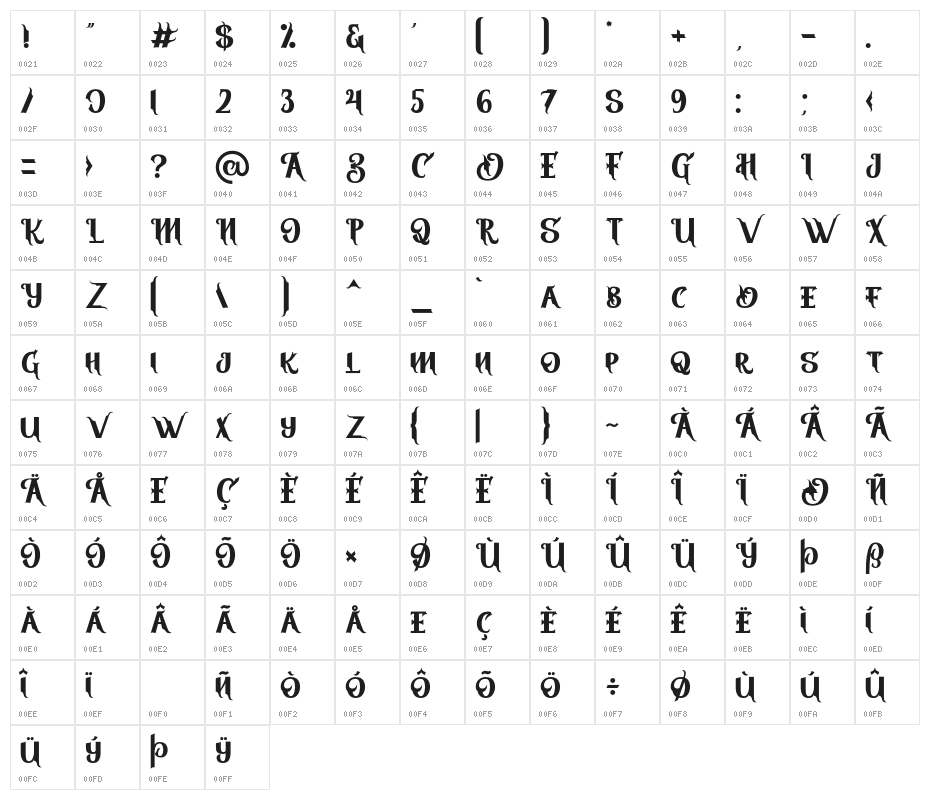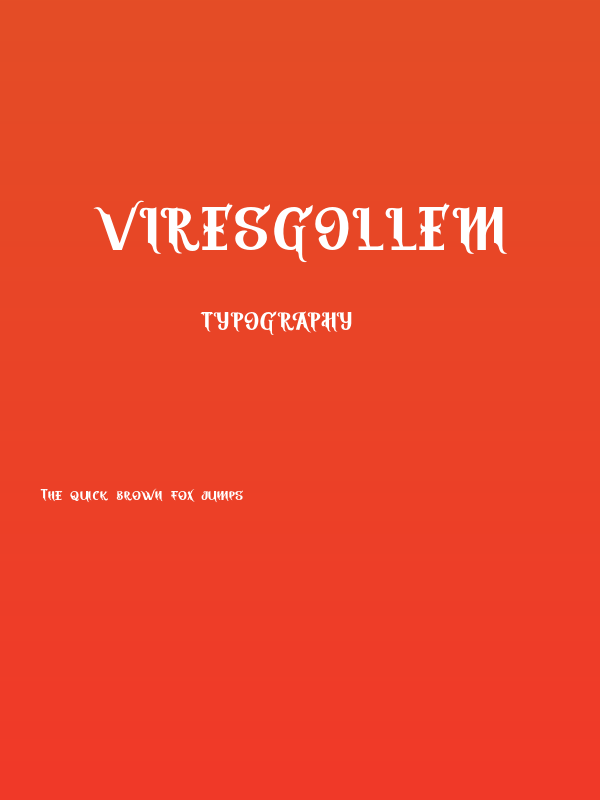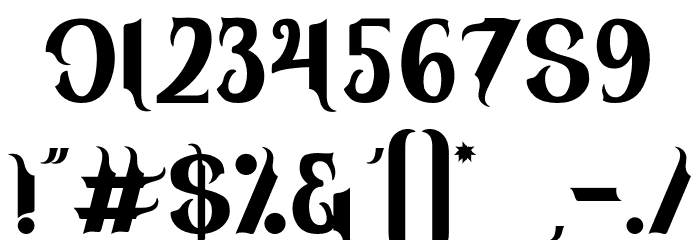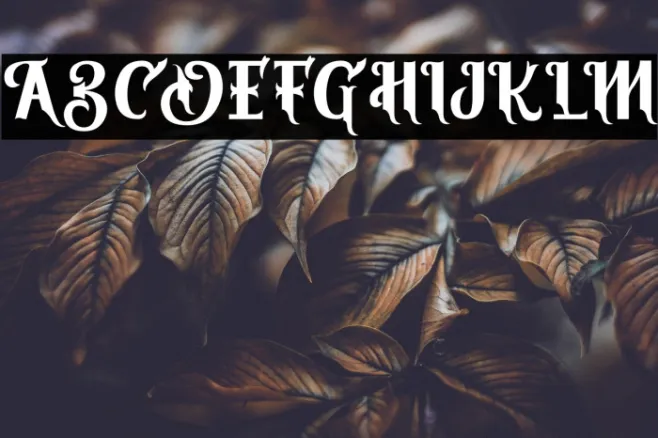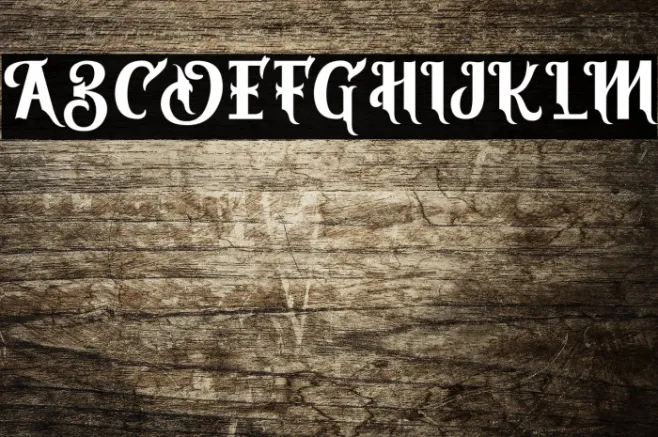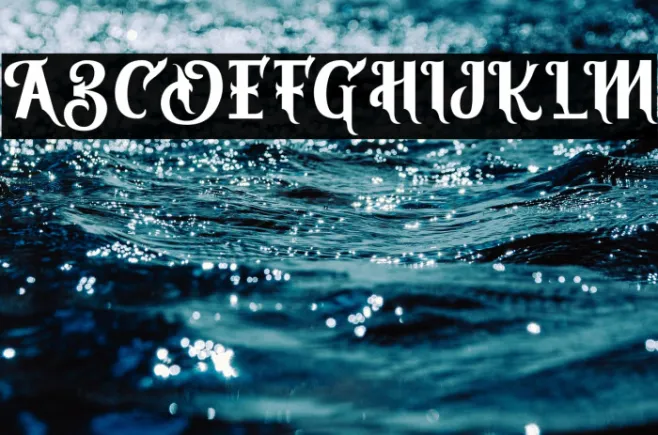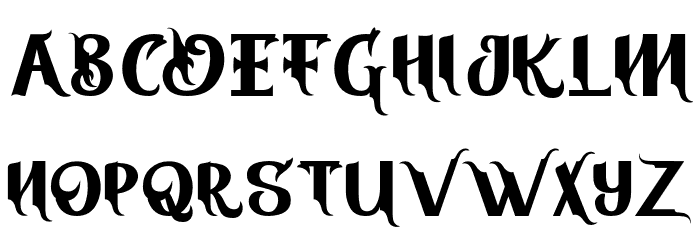
ViresGollem Font
ViresGollem Description
This font features a bold and dramatic style with intricate, sharp edges and flourishes reminiscent of Gothic or medieval script. The uppercase letters are particularly ornate, with exaggerated serifs and strokes that give a sense of grandeur and formality. The lowercase letters maintain the same decorative style, ensuring consistency throughout the typeface. Numbers and special characters are equally stylized, adding to the font's cohesive and striking appearance. The overall design is highly decorative, making it suitable for projects that require a strong visual impact.
| Proposed Projects | Ideal for use in branding, posters, book covers, and any design that requires a historical or dramatic flair. |